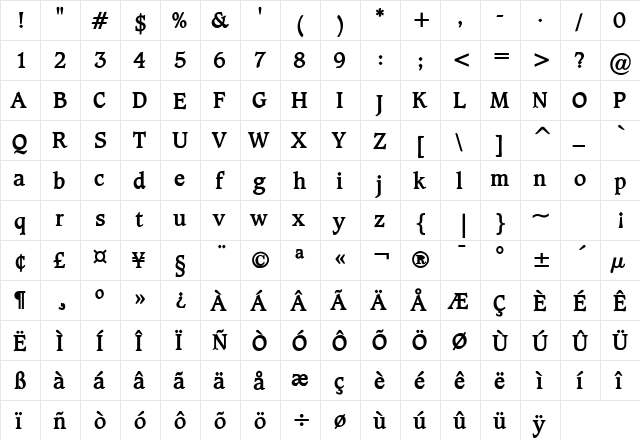
Clayton Bold
Design Context for Clayton Typeface
Clayton takes a measured approach to typography — its balanced proportions and neutral character make it a reliable workhorse for both digital and print work. Its bold stroke weight gives it real presence on the page.